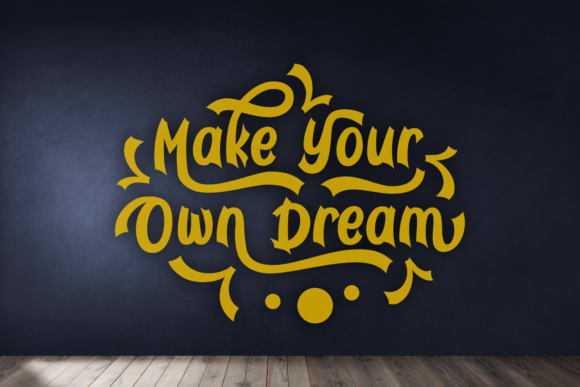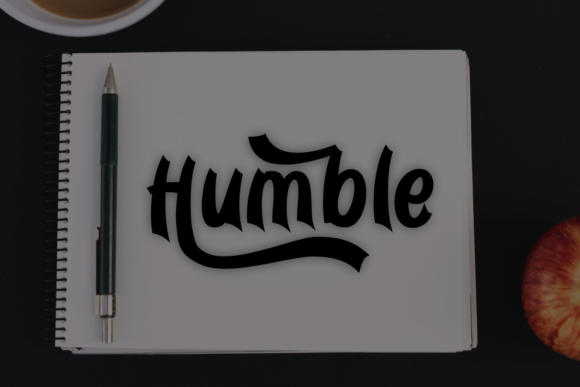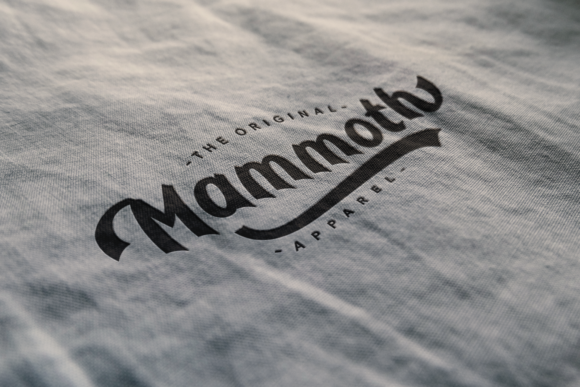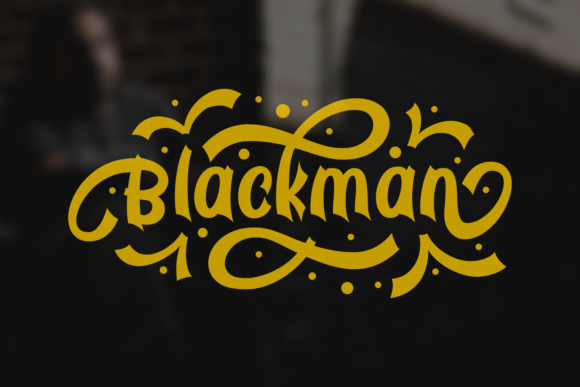
Unleash Your Creativity with Blackman Font: A Fun and Authentic Display Font
Are you tired of using the same old fonts in your design projects? Do you want to add a touch of uniqueness and personality to your creations? Look no further than the Blackman Font, a fun and authentic display font that’s sure to make your designs stand out. In this article, we’ll dive into the world of Blackman Font, exploring its features, benefits, and uses, and showing you how to make the most of this amazing font.
What is Blackman Font?
Blackman Font is a display font designed to add a touch of fun and authenticity to your designs. With its unique feel and quirky style, this font is perfect for designers and crafters looking to create eye-catching and memorable designs. Whether you’re working on a logo, poster, or social media graphic, Blackman Font is sure to make your project pop.
Key Features of Blackman Font
- Unique feel: Blackman Font has a distinctive style that’s unlike any other font out there. Its quirky and fun design makes it perfect for adding a touch of personality to your designs.
- Authentic display font: Blackman Font is designed to be used as a display font, making it perfect for headlines, titles, and other attention-grabbing elements.
- High-quality design: Blackman Font is designed with high-quality craftsmanship in mind, ensuring that it looks great in any design project.
Benefits of Using Blackman Font
So why should you choose Blackman Font for your design projects? Here are just a few benefits of using this amazing font:
- Adds personality to your designs: Blackman Font is a great way to add a touch of personality and uniqueness to your designs, setting them apart from the crowd.
- Perfect for display text: Blackman Font is designed specifically for display text, making it perfect for headlines, titles, and other attention-grabbing elements.
- Versatile: Blackman Font can be used in a wide range of design projects, from logos and posters to social media graphics and more.
- Easy to read: Despite its unique style, Blackman Font is easy to read, making it perfect for designs where you want to grab attention without sacrificing legibility.
How to Use Blackman Font in Your Design Projects
So how can you start using Blackman Font in your design projects? Here are a few tips to get you started:
- Use it as a headline font: Blackman Font is perfect for headlines and titles, where its unique style can really shine.
- Experiment with different colors: Blackman Font looks great in a wide range of colors, so don’t be afraid to experiment and find the perfect hue for your design.
- Pair it with other fonts: Blackman Font can be paired with a wide range of other fonts to create a unique and eye-catching design.
- Use it in digital and print designs: Blackman Font can be used in both digital and print designs, making it a versatile addition to your font library.
Tips and Tricks for Getting the Most out of Blackman Font
Here are a few more tips and tricks for getting the most out of Blackman Font:
- Play with font sizes: Blackman Font looks great in a wide range of font sizes, so don’t be afraid to experiment and find the perfect size for your design.
- Use it to add emphasis: Blackman Font can be used to add emphasis to certain elements of your design, drawing attention to key messages or calls to action.
- Experiment with different textures: Blackman Font can be used with a wide range of textures and patterns to add depth and interest to your design.
| Font Name | Blackman Font |
| Author | Dani (7NTypes) |
In conclusion, Blackman Font is a fun and authentic display font that’s perfect for designers and crafters looking to add a touch of uniqueness and personality to their designs. With its unique feel, high-quality design, and ease of use, Blackman Font is a great addition to any font library. So why not give it a try and see how it can help take your designs to the next level?